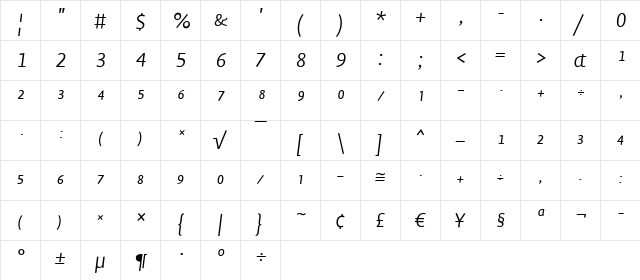
Profile Light Italic Font Preview
Profile Light Italic
Profile Light Italic Font Details
| Style | Light Italic |
| Foundry | by Martin Wenzel, published by FontShop International for the FontFont library. Profile is a trademark of FSI, Fonts and Software GmbH,http://www.fontfont.de |
Design Context for Profile Typeface
Profile offers clean, dependable letterforms without strong stylistic allegiance, making it a practical choice for designers who need flexibility. The slanted form adds forward momentum and visual energy. Its slender proportions lend an understated elegance to any composition.
Pro Tip: Try Profile for annotation and caption copy alongside an upright companion — the contrast in angle creates a dynamic but ordered typographic system.